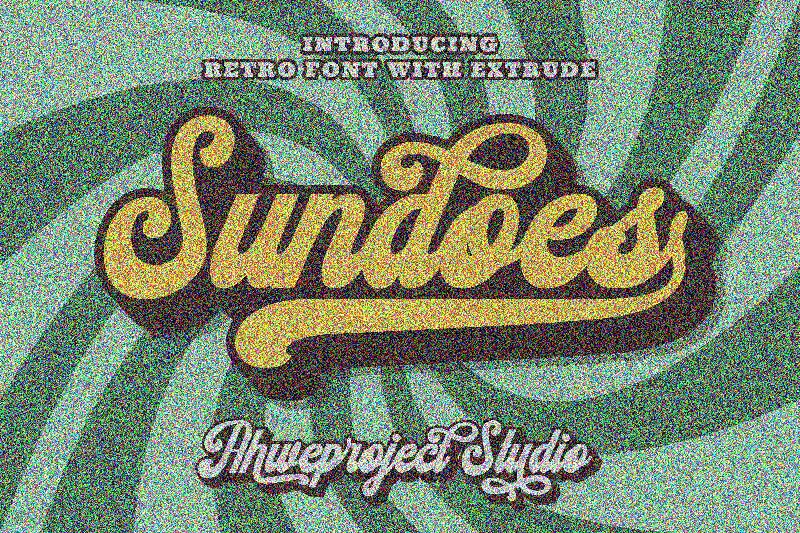
Sundoes, designed by Ahwe Project, is a bold testament to the fusion of vintage charm and contemporary flair. Its smooth retro brush style exudes a sense of nostalgia while maintaining a crisp modern edge, making it an ideal choice for projects seeking to blend the old with the new. The Sundoes font boasts elegant curves and a flowing form that capture attention and evoke emotion.
This font's bold weight ensures that its presence is felt on any canvas, from digital platforms to printed materials. Perfect for branding, packaging, or any creative endeavor looking to make a statement with typeface, Sundoes offers versatility without sacrificing character. With its distinctive aesthetic appeal that resonates with diverse audiences, Sundoes stands out as not just type on a page but as artistry in typography.